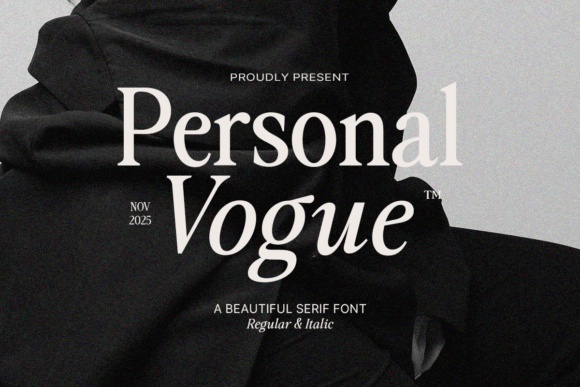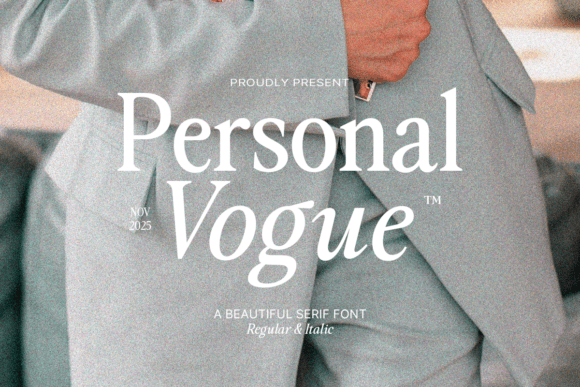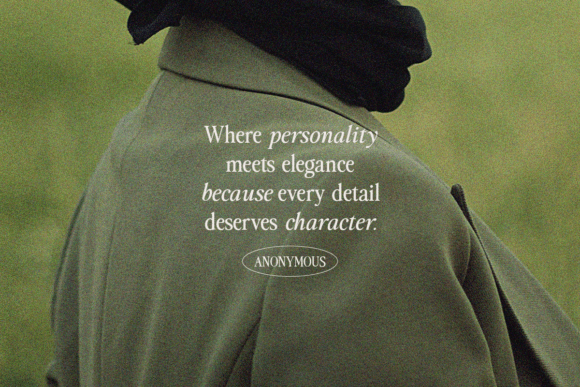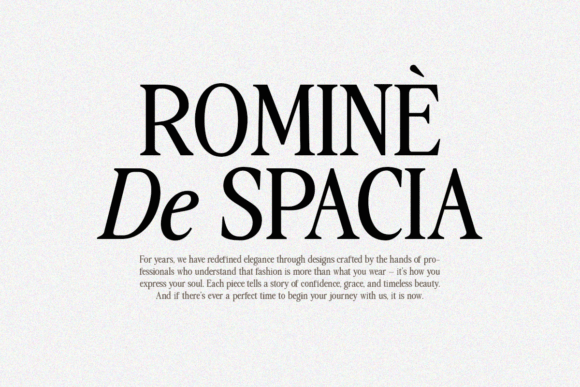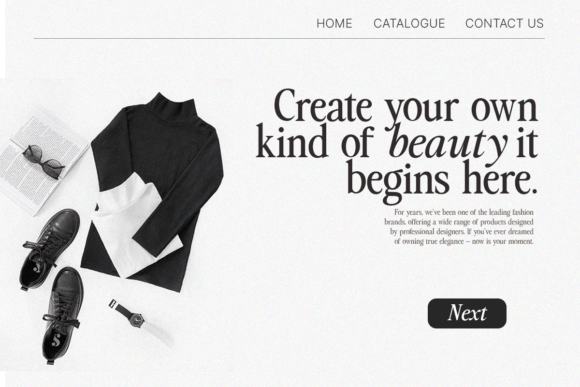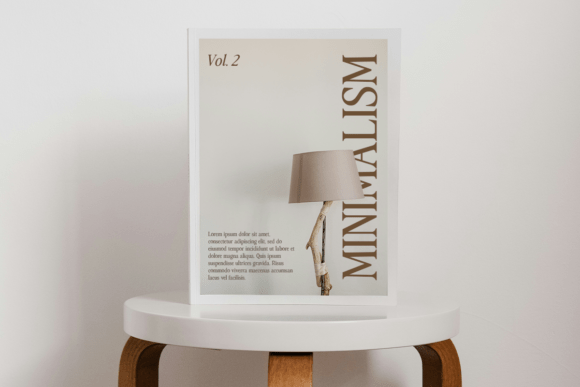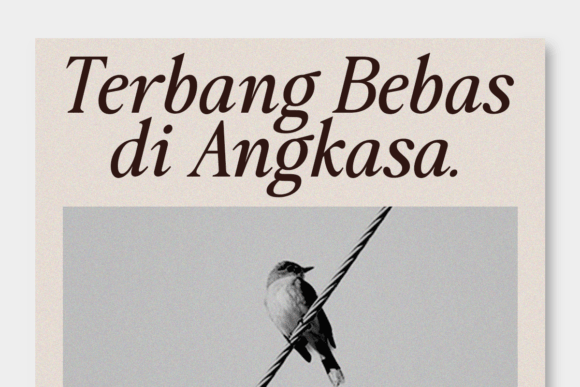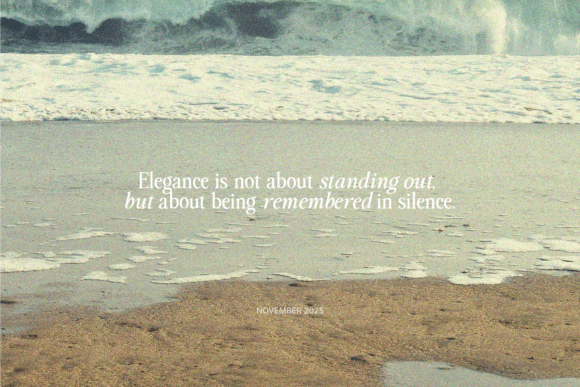
Personal Vogue Font
Personal Vogue Font is a stunning, high-contrast serif typeface that radiates unparalleled sophistication and luxury.
Its distinct modern elegance is achieved through the dramatic interplay of thin hairlines and thick, commanding main strokes, a classic Bodoni-style revival with a contemporary flair. The beautifully curved terminals and tall, proud ascenders give every word an aspirational, editorial feel. The family includes both a classic Regular and a captivating Italic style, the latter featuring beautifully flowing and slightly slanted letterforms that maintain high legibility while adding a unique rhythmic movement. This versatility makes it ideal for impactful headlines and refined body copy alike.
This typeface boasts a comprehensive glyph set, including extensive language support, ensuring it meets the demands of global design projects. Use Personal Vogue to inject a premium feel into high-end fashion branding, magazine layouts, luxury product packaging, and exclusive digital interfaces where conveying prestige is paramount. It is the definitive choice for designers who require a font that is both commanding and incredibly delicate.